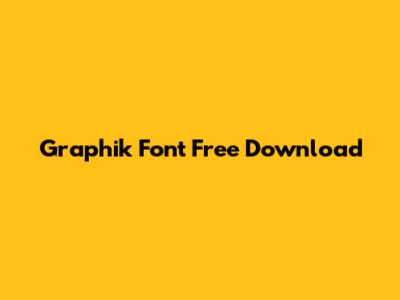
Graphik Font Free Download: Get Yours Now!
Are you on the hunt for the Graphik font free download? Well, you're in the right place! Let's dive deep into why this font is so popular, where you can find it, and how to use it in your projects. Finding the right font can be a game-changer for any design project, and Graphik is a choice that many designers swear by. Known for its versatility and clean appearance, Graphik has become a staple in the design world. Whether you're working on branding, web design, or print materials, this font can add a touch of modern elegance and readability that sets your work apart. So, let's get into the details and help you get your hands on this fantastic font.
What Makes Graphik So Special?
Graphik isn't just another font; it's a meticulously crafted typeface that balances functionality with aesthetic appeal. Designed by Christian Schwartz at Commercial Type, Graphik is celebrated for its geometric structure and clarity. One of the key reasons designers love Graphik font free download options is its adaptability. It works beautifully in a variety of contexts, from minimalist designs to more complex layouts. The font's clean lines and balanced proportions make it incredibly readable, whether you're using it for body text or headlines. Its versatility extends to different media as well, performing equally well in print and digital formats.
Another aspect that sets Graphik apart is its extensive range of weights and styles. This variety allows designers to create a cohesive visual hierarchy within their designs. You can easily switch between light, regular, bold, and italic variations to emphasize different elements and guide the reader's eye. This flexibility is crucial for creating professional and polished designs that communicate effectively. Moreover, Graphik's neutral appearance ensures that it doesn't overpower the content, allowing the message to take center stage. It's a font that enhances rather than distracts, making it an excellent choice for projects where clarity and readability are paramount.
The design of Graphik also reflects a deep understanding of typography. The spacing between letters, the height of the characters, and the overall rhythm of the text have all been carefully considered. This attention to detail results in a font that is not only visually appealing but also comfortable to read for extended periods. Whether you're designing a website, a brochure, or a book, Graphik's thoughtful design will contribute to a positive user experience. It's a font that respects the reader's time and attention, making it a valuable asset for any designer.
1. Free Alternatives: One of the best approaches is to look for free alternative fonts that closely resemble Graphik. Many talented designers have created open-source fonts that capture the essence of Graphik's geometric and clean style. Fonts like Montserrat, Lato, and Open Sans are excellent substitutes that you can use for free in your projects. These fonts are available on popular platforms like Google Fonts, making them easily accessible and convenient to use. While they might not be exact copies, they offer a similar aesthetic and can be a great way to achieve a comparable look without incurring any costs.
4. Educational Licenses: If you're a student or educator, you may be eligible for educational licenses that provide access to premium fonts like Graphik at a reduced cost or even for free. Many font foundries offer special pricing for educational institutions and students to support learning and research. Check with your school or university to see if they have any partnerships or programs that provide access to commercial fonts. This can be a great way to use Graphik in your academic projects without having to pay the full price.
5. Legitimate Free Downloads: While it's rare, some websites occasionally offer legitimate free downloads of specific font styles for promotional purposes. These offers are usually time-limited and come directly from the font foundry or designer. Always verify the authenticity of the source before downloading any font to avoid potential copyright issues or malware. Look for official announcements or reputable design blogs that promote these freebies to ensure that you're getting a legitimate and safe download.
Final Thoughts on Graphik Font Free Download